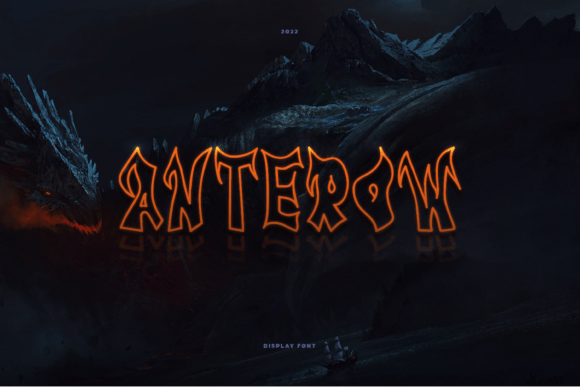
Introducing Anterow Font: The Fun and Quirky Display Font You Need
Are you tired of using the same old fonts in your designs? Look no further than Anterow Font, a fun and slightly weird display font that’s sure to elevate your creations. With its unique and quirky style, Anterow Font is the perfect addition to any designer’s font library.
The Versatility of Anterow Font
One of the best things about Anterow Font is its versatility. No matter the topic or theme of your design, this font can adapt and add a touch of personality to your work. Whether you’re designing a poster, a website, or a social media graphic, Anterow Font is sure to make your creation stand out.
A Font that’s Full of Character
Anterow Font is a display font that’s full of character and personality. Its unique and quirky style is sure to add a touch of whimsy to your designs, making them more engaging and fun to look at. The font’s slightly weird and unconventional style is perfect for designers who want to add a bit of humor or irony to their work.
Elevate Your Designs with Anterow Font
Anterow Font has the potential to elevate any creation, from a simple logo to a complex branding campaign. Its bold and eye-catching style is sure to grab attention and make your design stand out from the crowd. Whether you’re a professional designer or a crafty DIY enthusiast, Anterow Font is a great addition to your font library.
Anterow Font is perfect for a variety of design projects, including:
• Posters and flyers: Add a touch of personality to your posters and flyers with Anterow Font’s unique and quirky style.
• Social media graphics: Make your social media graphics stand out with Anterow Font’s bold and eye-catching style.
• Logos and branding: Use Anterow Font to create a unique and memorable logo that reflects your brand’s personality.
• Web design: Add a touch of whimsy to your website with Anterow Font’s fun and quirky style.
Why Choose Anterow Font?
So why choose Anterow Font over other display fonts? Here are just a few reasons:
• Unique and quirky style: Anterow Font’s unique and quirky style is sure to make your designs stand out.
• Versatility: Anterow Font can be used for a variety of design projects, from posters to websites.
• Easy to read: Despite its quirky style, Anterow Font is easy to read and understand.
• Fun and engaging: Anterow Font is perfect for designers who want to add a bit of humor or irony to their work.
In conclusion, Anterow Font is a fun and slightly weird display font that’s sure to elevate your designs. With its unique and quirky style, versatility, and ease of use, Anterow Font is a great addition to any designer’s font library. Whether you’re a professional designer or a crafty DIY enthusiast, Anterow Font is perfect for a variety of design projects. So why not give it a try and see how it can add a touch of personality to your work?